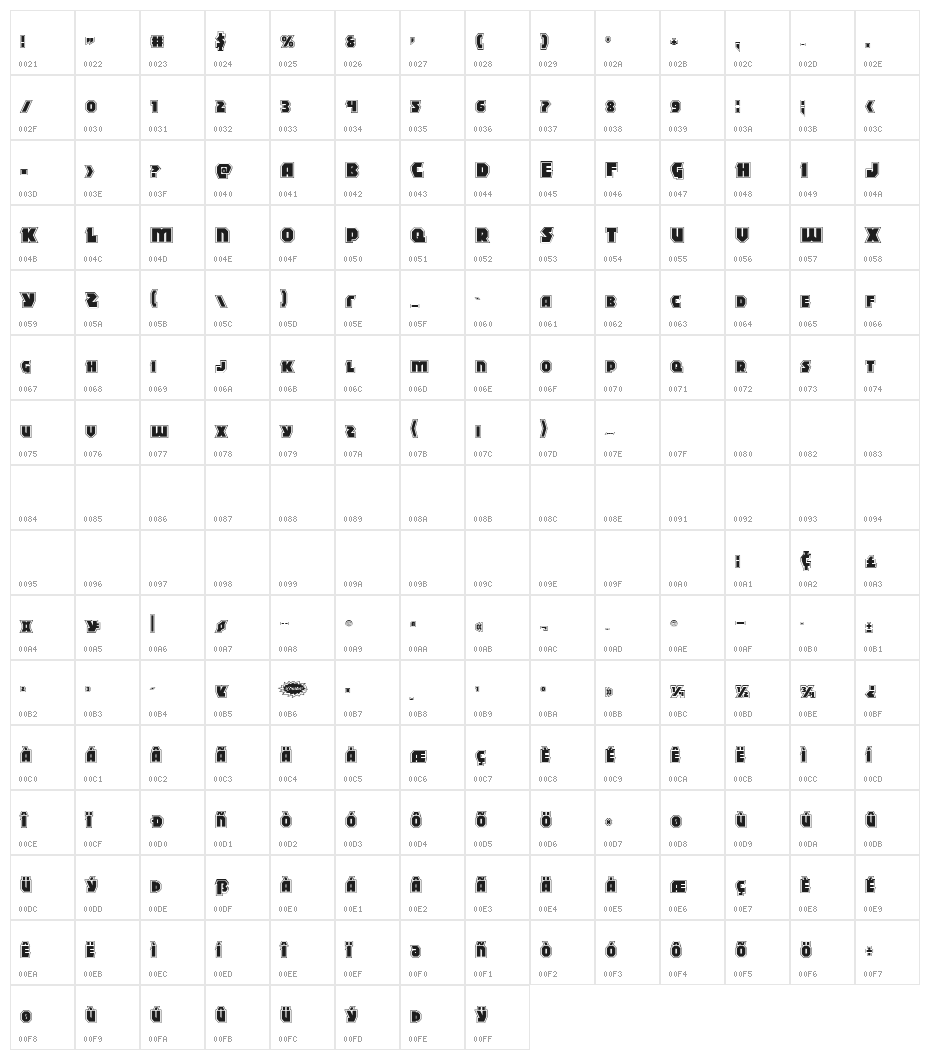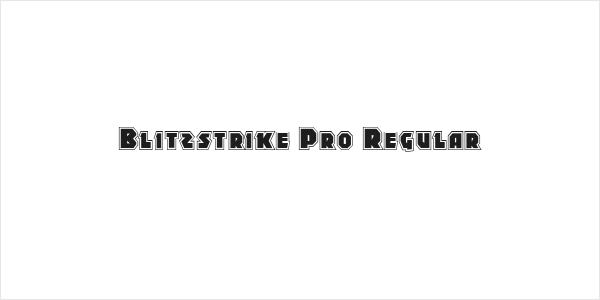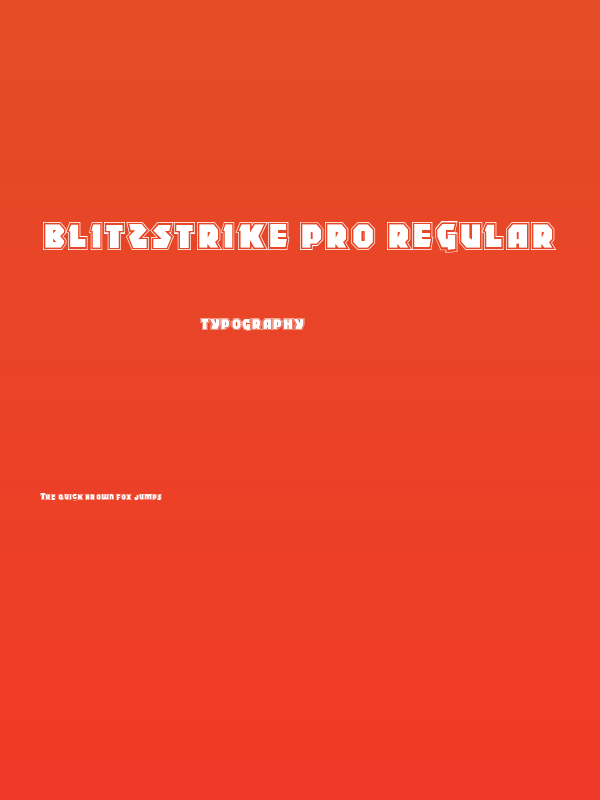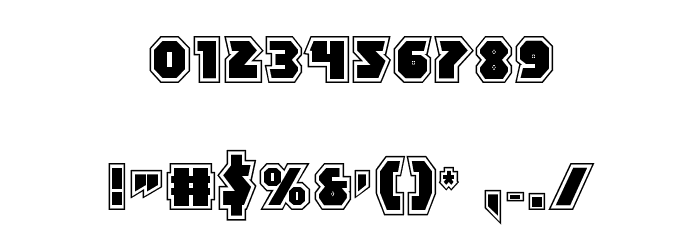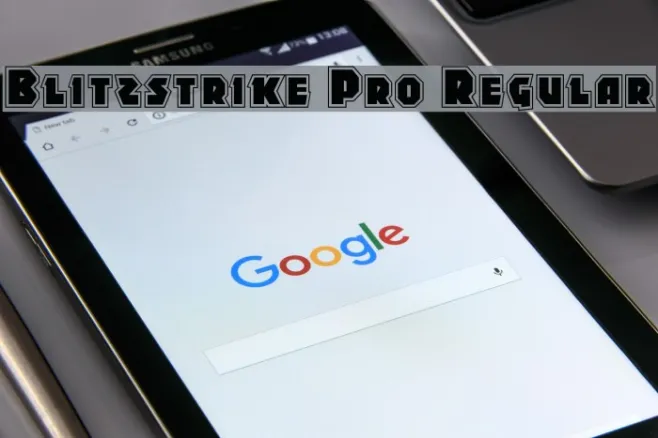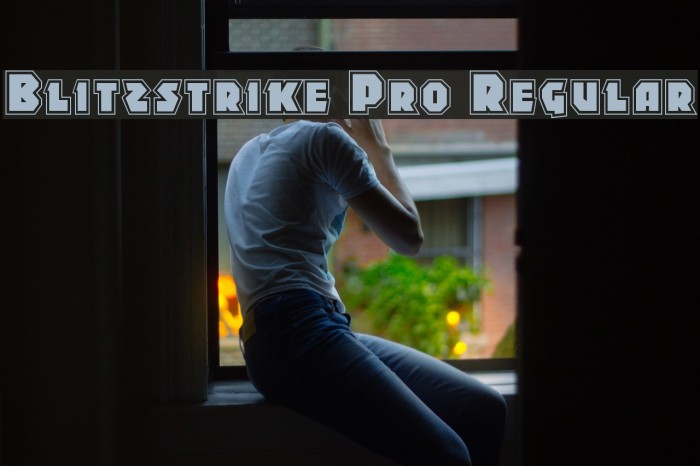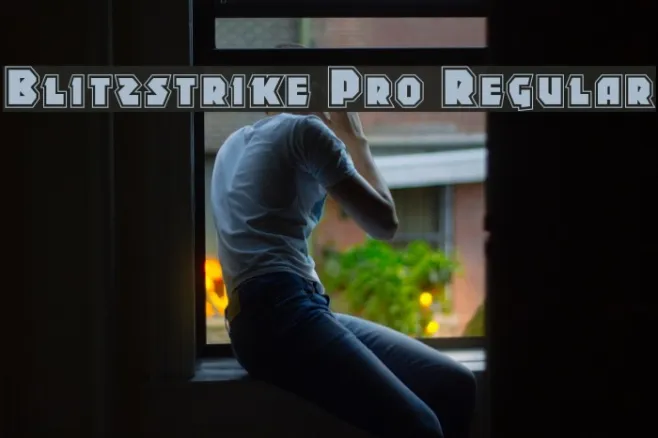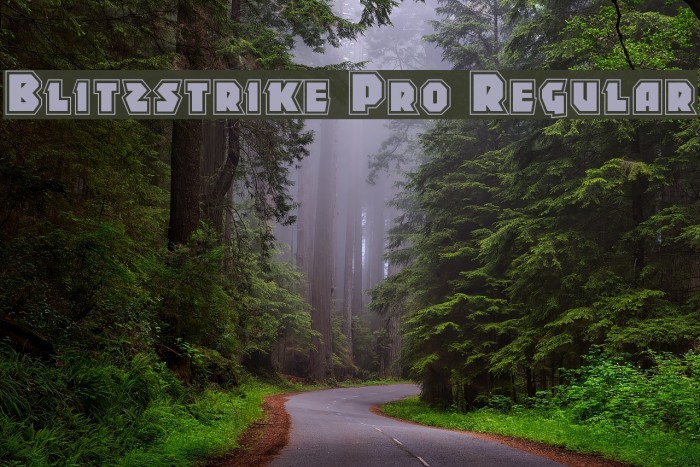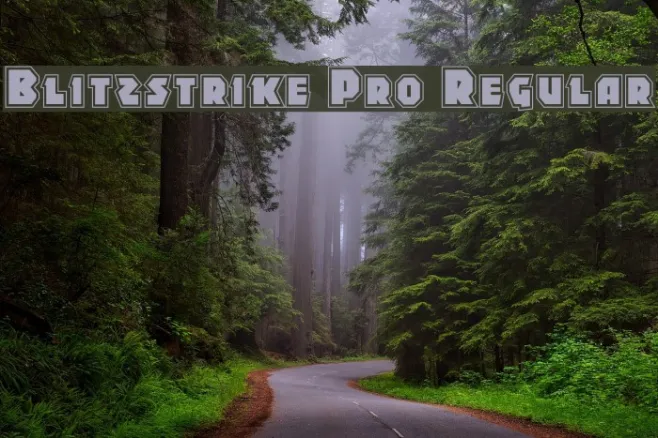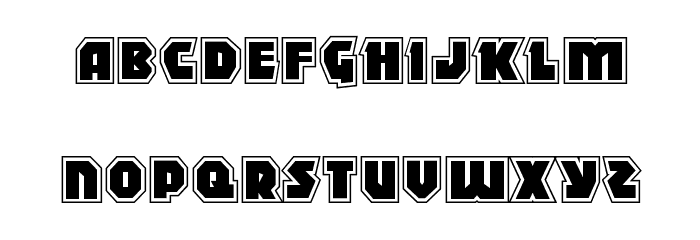
Blitzstrike Pro Regular Font
Blitzstrike Pro Regular Description
This font features a bold, geometric design with a strong presence. The characters are outlined, creating a striking contrast between the solid interior and the surrounding space. The angular shapes and sharp edges give it a futuristic and dynamic appearance, making it ideal for attention-grabbing headlines or logos. The uppercase and lowercase letters maintain a consistent style, while the numbers and special characters complement the overall aesthetic. Its boldness and unique style make it stand out in any design context.
| Proposed Projects | Ideal for use in video game titles, tech company logos, or sci-fi movie posters. |